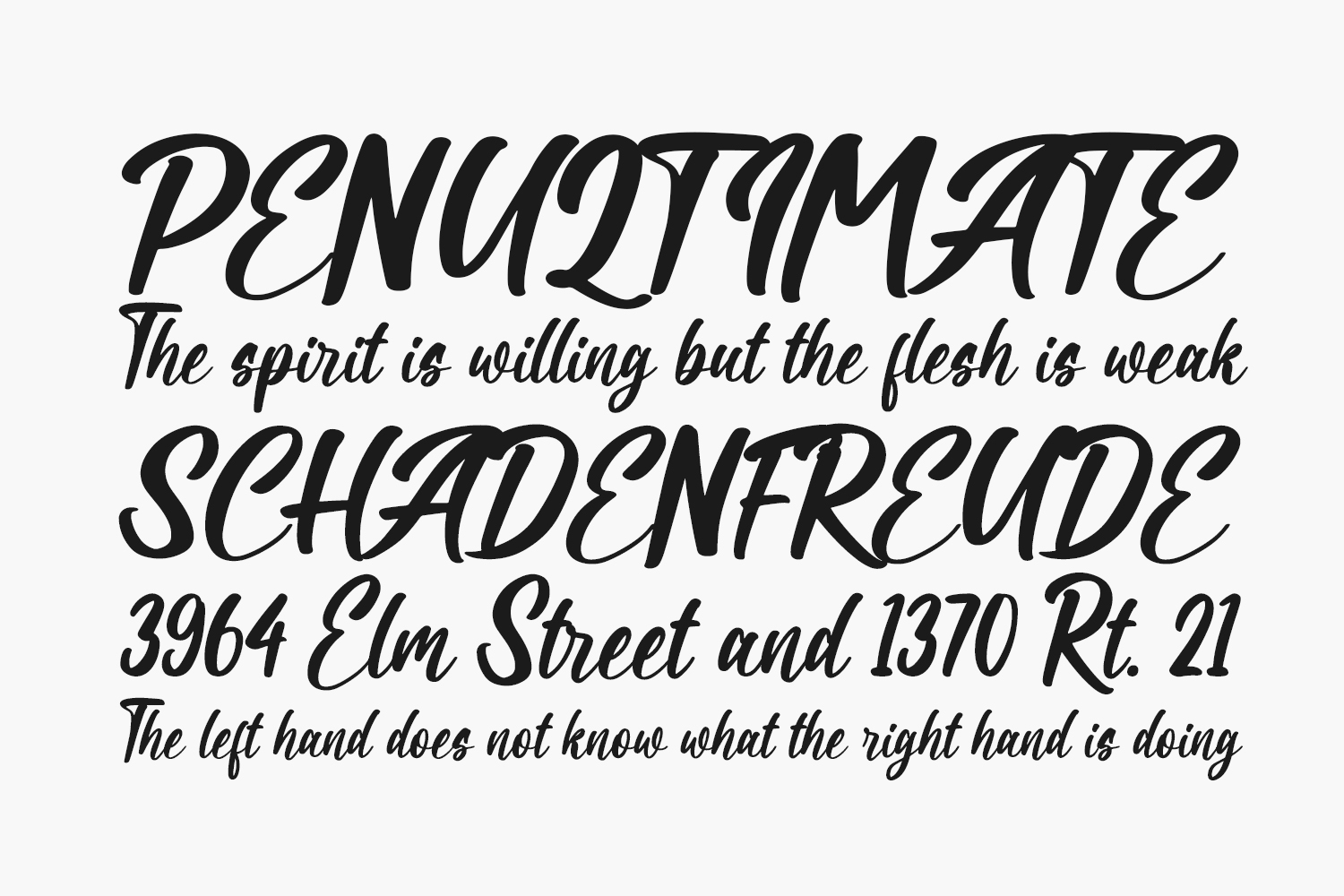
Creative Vibes Free Font – Bold Script for Artistic & Expressive Designs
Creative Vibes is a bold and expressive handwritten script font designed by Khurasan to bring energy and artistic flair to your creative projects. With its thick strokes, dramatic curves, and natural flow, this free decorative typeface works perfectly for crafting powerful logos, posters, greeting cards, social media quotes, and more. Available in OTF format — ideal for designers seeking a modern brush-style font that commands attention without sacrificing legibility.
Why Choose Creative Vibes?
- Bold Brush Style: Combines high contrast with flowing strokes for a strong, hand-drawn appearance.
- Ideal for Logos & Posters: Perfect for large text applications like magazine headers, brand identities, or event banners needing visual impact.
Where to Use Creative Vibes?
Creative Vibes shines across a variety of design applications:
- Logos & Branding: Adds personality to brand kits for lifestyle brands, fashion labels, or creative studios needing an expressive tone.
- Posters & Billboard Design: Designed for maximum visibility — makes headlines pop in outdoor advertising.
- Social Media Graphics: Creates bold text overlays for Instagram Stories, TikTok videos, or YouTube thumbnails.
- Greeting Cards & Invitations: Brings warmth to thank-you notes, birthday cards, or wedding signage with a human touch.
- Packaging Design: Enhances product tags, novelty packaging, or artisanal branding with a dynamic handwritten style.
Design Tips with Creative Vibes